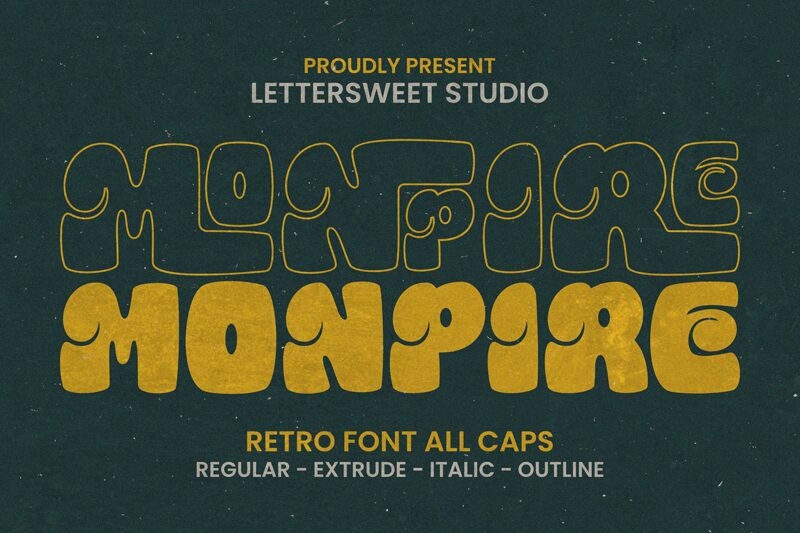
Monpire Regular
Monpire font from Lettersweet Studio captivates with its bold, groovy style, exuding a vibrant energy that immediately draws attention. Its playful curves and distinctive forms create a sense of whimsy, making it perfect for designs that aim to evoke joy and creativity. The robust presence of this font ensures it stands out in any setting, whether on a poster or digital platform.
Monpire’s unique aesthetic makes it an excellent choice for dynamic branding, event promotions, or eye-catching headlines. Its energetic design lends itself well to marketing materials targeting young audiences or creative industries. Embrace Monpire for projects that require a fun yet assertive look—its engaging character will undoubtedly leave a lasting impression.